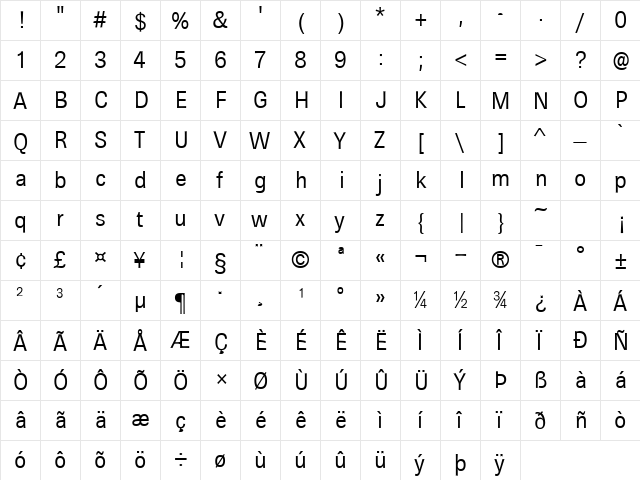
BrownLight Regular
Design Context for BrownLight Typeface
BrownLight offers clean, dependable letterforms without strong stylistic allegiance, making it a practical choice for designers who need flexibility. The delicate stroke weight brings airiness and refinement to layouts.
Pro Tip: Use BrownLight in both headline and body roles to test its range before committing to a single application.